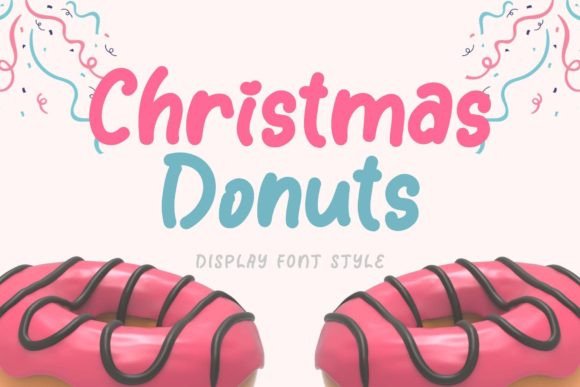
Introducing the enchanting and irresistible "Christmas Donuts" font, designed to add a touch of sweetness and charm to your creative projects. This delightful display font is the perfect companion for all your holiday-themed designs, from Christmas to Valentine's Day and everything in between.
With its playful uppercase and lowercase letters, numerals, punctuation marks, and multilingual support, "Christmas Donuts" offers endless possibilities for expressing your creativity. Whether you're creating festive logos, eye-catching banners, captivating posters, adorable stickers, or memorable business branding, this font is guaranteed to make your designs stand out from the crowd.
Imagine the joy and excitement that this font will bring to your Christmas projects. Its whimsical and cheerful appearance will instantly transport your audience to a world of holiday magic. Let your imagination run wild as you craft personalized holiday greetings, festive party invitations, and heartwarming winter-themed designs.
But the magic of "Christmas Donuts" doesn't end there. This font is also a perfect choice for Halloween-themed designs, adding a touch of spookiness to your creations. Its versatility knows no bounds, making it an essential tool for any designer looking to captivate their audience and leave a lasting impression.
Embrace the holiday spirit and let "Christmas Donuts" be your secret ingredient for creating unforgettable designs. Its captivating charm and versatility make it a must-have font for all your festive occasions. Whether you're creating birthday invitations, winter-themed designs, or simply adding a touch of whimsy to your everyday projects, this font will never fail to bring a smile to your face.